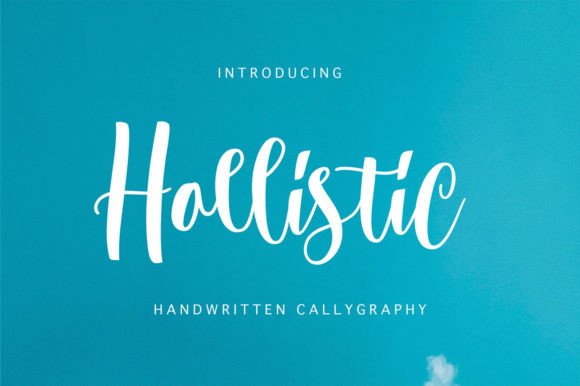
Discover the Alluring Hollistic Font: A Scriptwriting Masterpiece for a Touch of Elegance
In the realm of digital expression, your words are the brush, and the font is your palette. Introducing the Hollistic Font, a captivating script font that dances across the screen with grace and charm, leaving a lasting impression on your audience.
Born from the creative mind of gatype, Hollistic is a handwritten font that exudes warmth, playfulness, and a touch of whimsy. Its fluid strokes and elegant curves evoke a sense of joy and optimism, making it the perfect choice for adding a personal touch to your digital communications.
With Hollistic as your writing companion, your Gmail signature transforms into a work of art, reflecting your unique personality and style. Its meticulously crafted characters add a touch of sophistication to your emails, whether you're sending a formal message to a client or a friendly note to a friend.
But Hollistic's versatility doesn't stop at email signatures. Its inherent charm lends itself beautifully to a wide range of creative projects, from heartfelt invitations and personalized greeting cards to eye-catching social media posts and stunning website designs.
Express your creativity like never before as Hollistic weaves its magic into your digital creations. Its PUA encoding ensures effortless access to a treasure trove of glyphs and swashes, empowering you to add intricate details and flourishes to your designs.
Embrace the captivating allure of Hollistic, the ultimate script font that elevates your digital presence with a touch of elegance and charm. Let your words dance with grace and leave a lasting impression on your audience with every message you send.